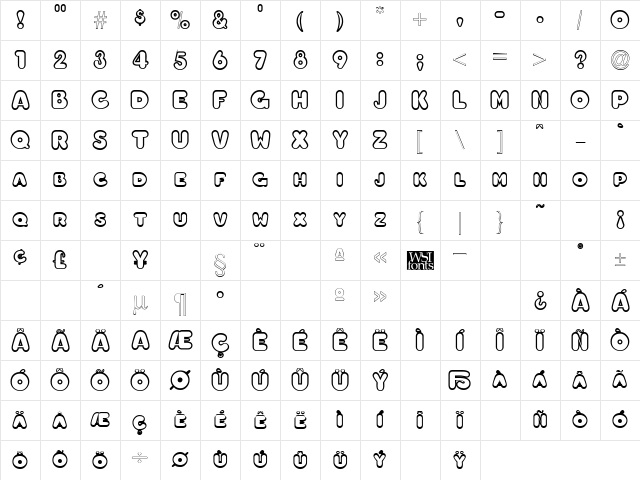
ChubbyOutline Bold
ChubbyOutline Family
ChubbyOutline Bold
ChubbyOutline Bold Font Preview
ChubbyOutline Bold Uppercase Preview
ChubbyOutline Bold Lowercase Preview
ChubbyOutline Bold Numeric Preview
ChubbyOutline Bold Character Map
Complete ChubbyOutline Bold glyph index. Displaying only characters natively supported by ChubbyOutline Bold font.
Design Context for ChubbyOutline
ChubbyOutline is built around its visual character rather than neutral utility - its distinctive forms are designed to make an impression at display sizes. Its bold stroke weight gives it real presence on the page.
Font Pairing: Pair with a clean neutral sans-serif for body copy to let ChubbyOutline's character lead without overwhelming the composition.
Pro Tip: Use ChubbyOutline exclusively at display sizes - it was designed to be seen, not read at length. Let a neutral companion handle body copy.